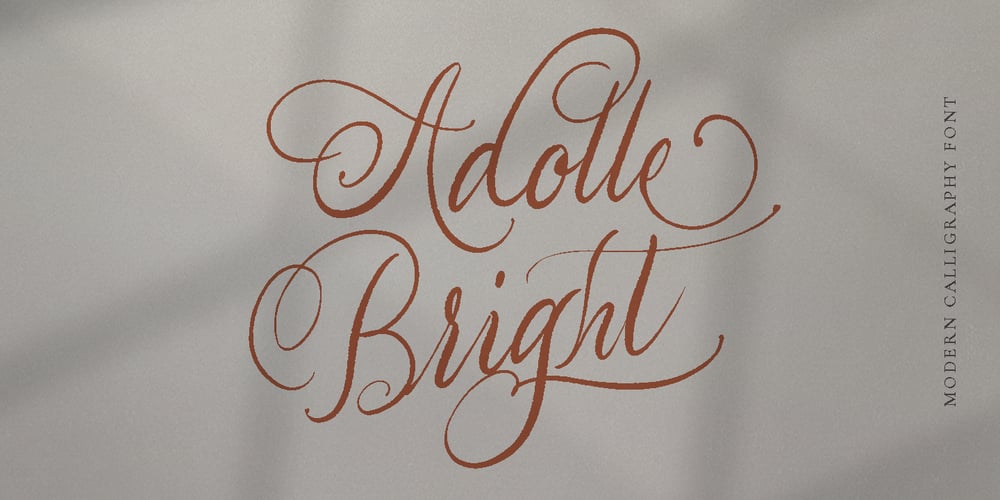
Adolle Bright Font Family was designed by Hendra Maulia and published by Dirtyline Studio. Adolle Bright contains 1 styles and family package options. Adolle Bright – a new fresh & modern script with a calligraphy style, a dancing baseline! So beautiful on invitation like greeting cards, branding materials, business cards, quotes, posters, and more!Features Basic Latin A-Z and a-z Numbers Symbols Stylistic Set Ligature PUA Encode Multilanguage Support